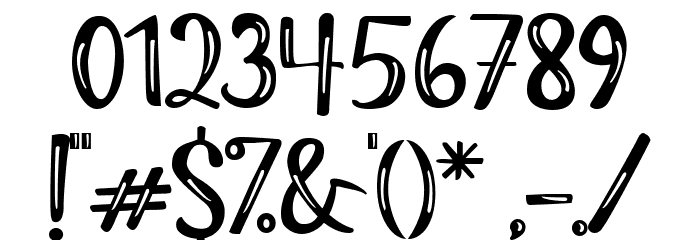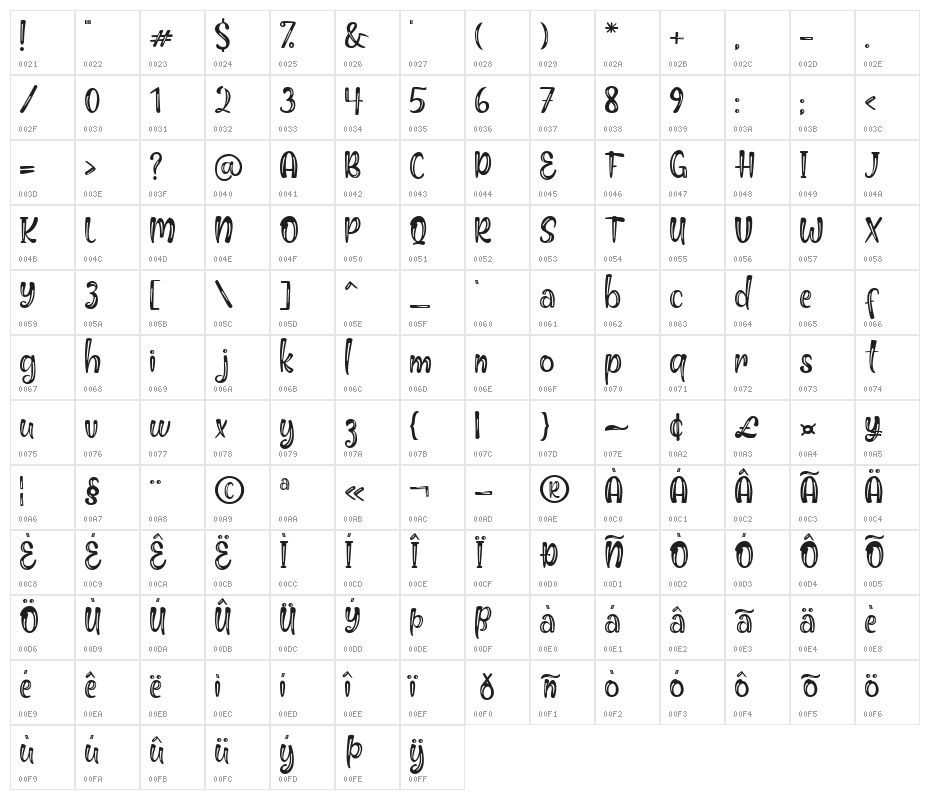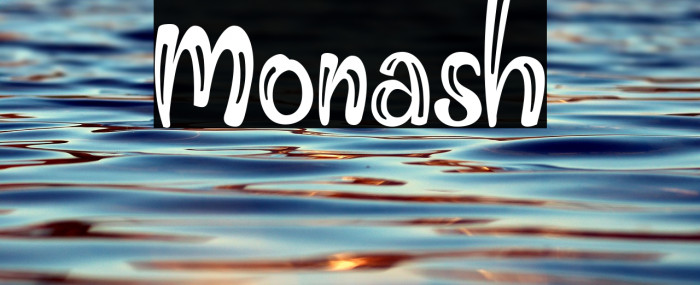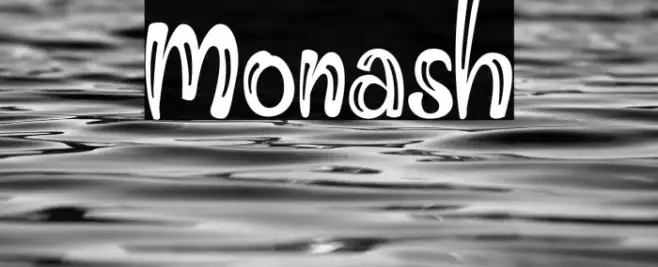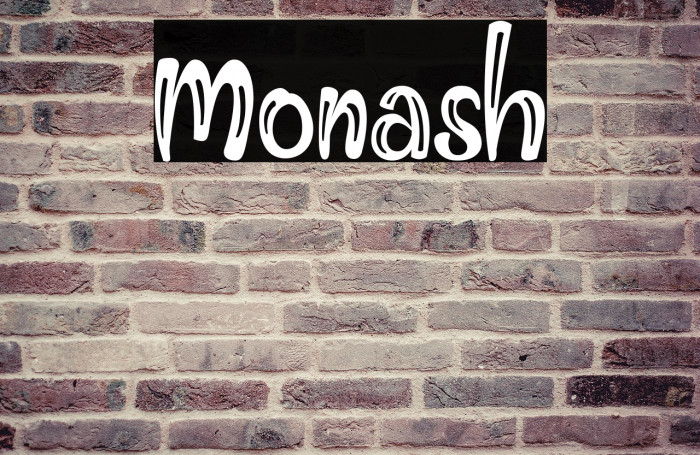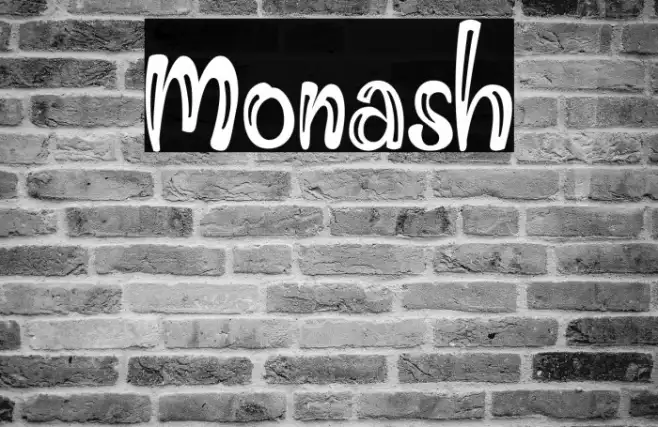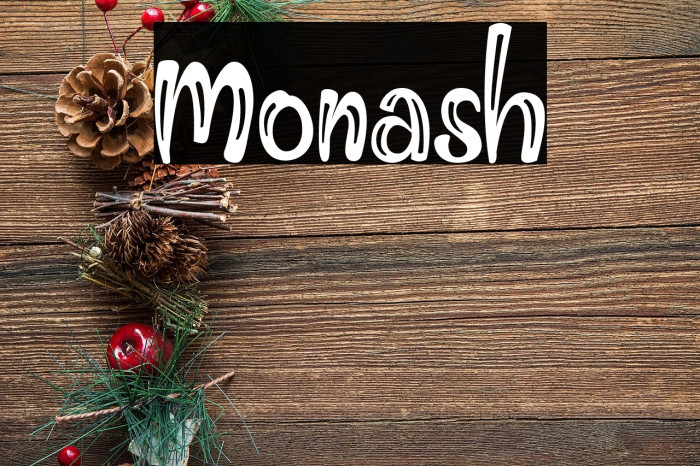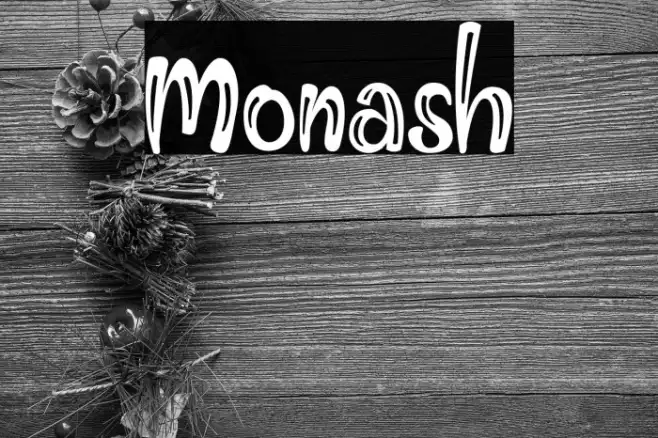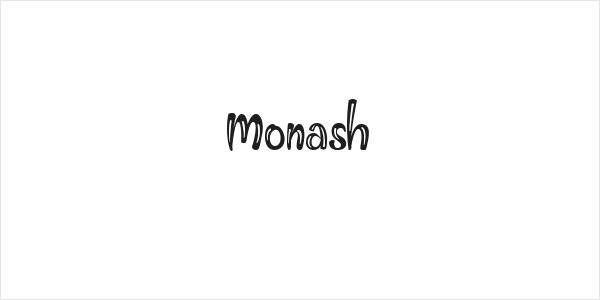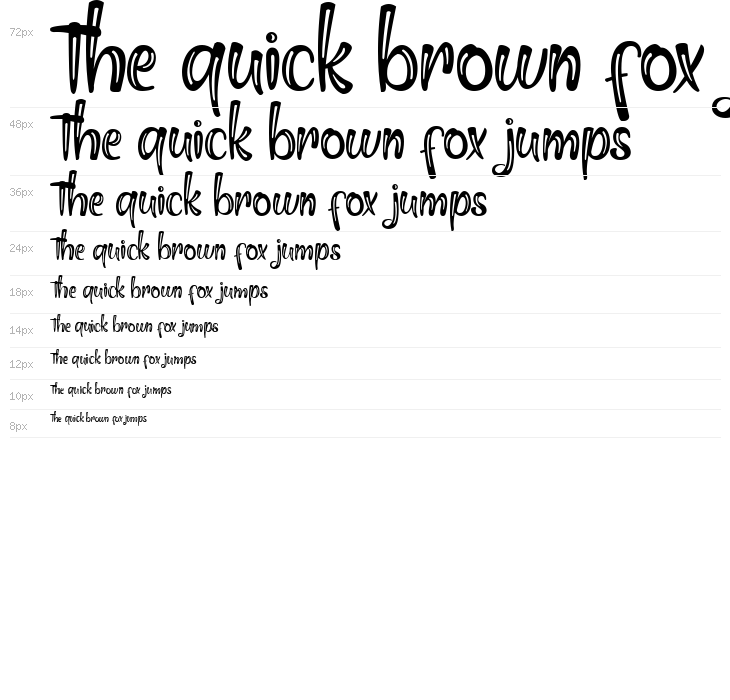
Monash Font
Monash Description
This font exhibits a playful and artistic style, characterized by its bold and flowing letterforms. Each character is uniquely crafted with a hand-drawn appearance, giving it a whimsical and informal feel. The strokes are thick and consistent, with a slight slant that adds to its dynamic nature. The uppercase letters are bold and prominent, while the lowercase letters maintain a consistent style, enhancing readability. Numbers and special characters are designed to match the overall aesthetic, making this font versatile for various creative projects. Its decorative nature makes it suitable for eye-catching designs.
| Proposed Projects | Ideal for greeting cards, children's books, playful branding, and artistic posters. |